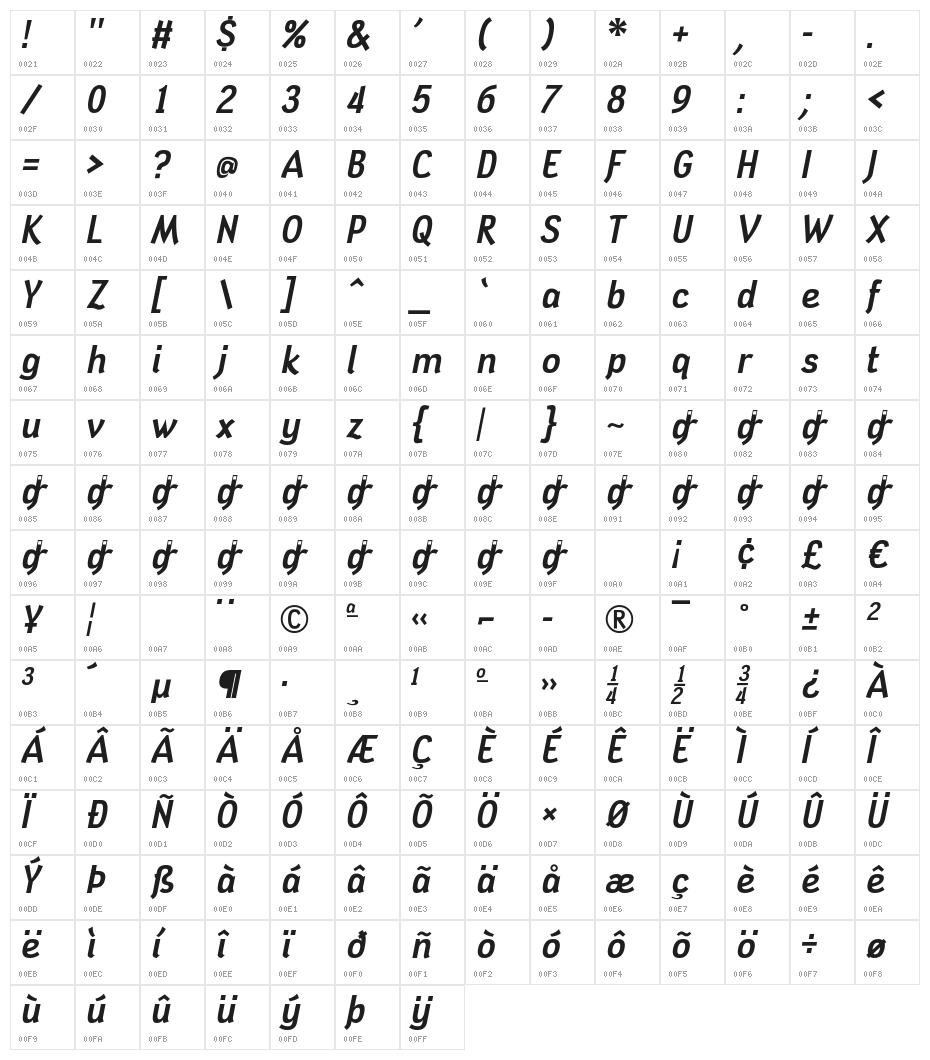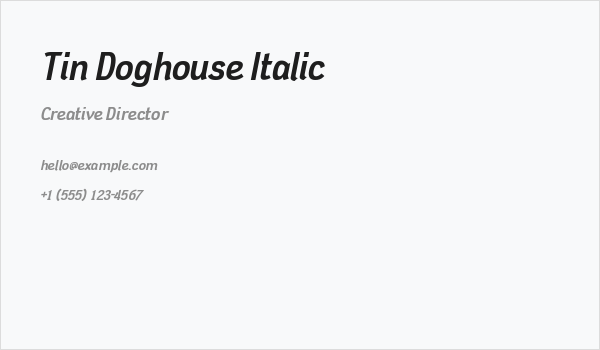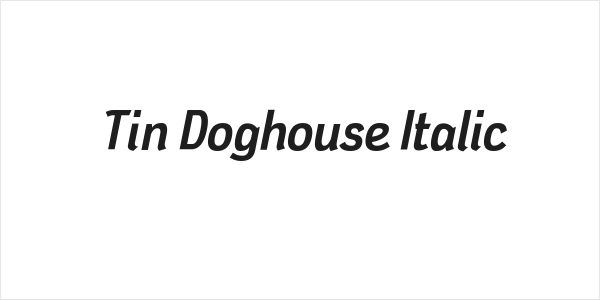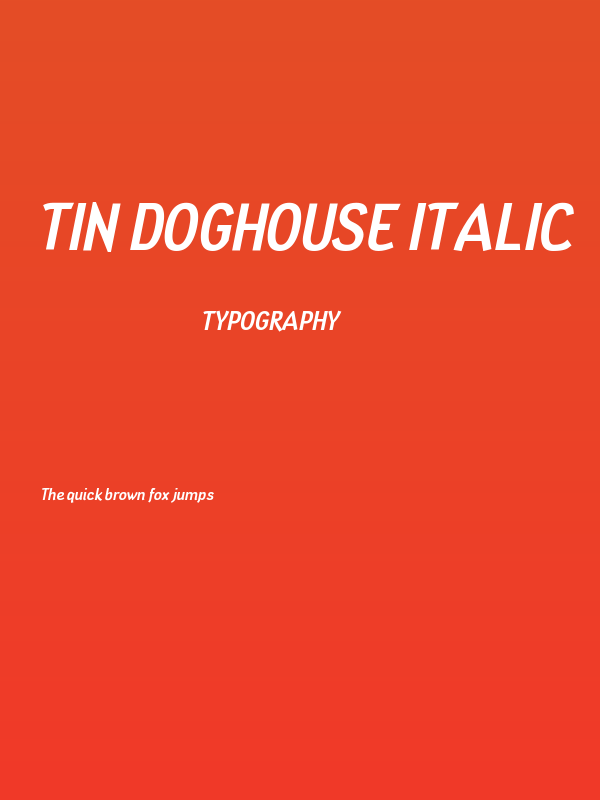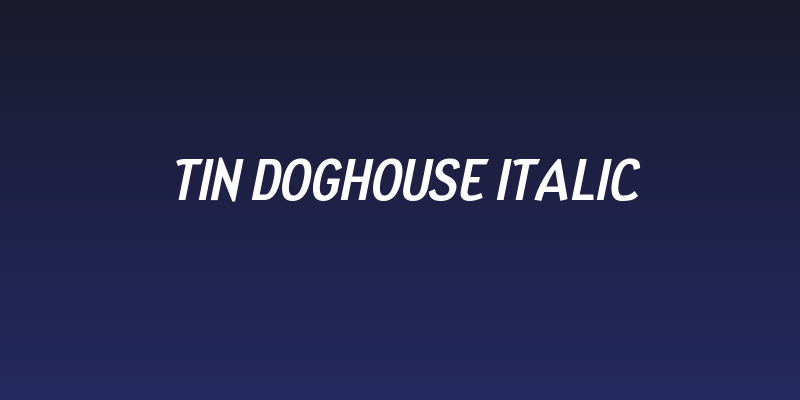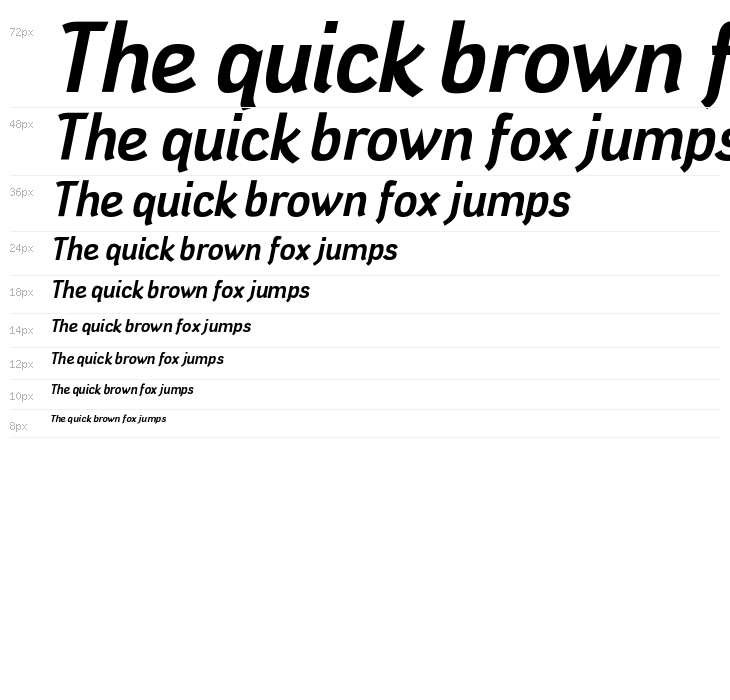
Tin Doghouse Italic Font
Tin Doghouse Italic Description
This font features a dynamic and modern italic style with a forward-leaning slant that adds a sense of motion and energy. The characters are well-defined with smooth curves and sharp edges, creating a sleek and contemporary appearance. The uppercase letters are bold and commanding, while the lowercase letters maintain a consistent flow, enhancing readability. The numerals are clear and distinct, making them suitable for various applications. Special characters are included, offering versatility for different design needs. Overall, this font exudes a professional yet approachable vibe, making it ideal for a wide range of creative projects.
| Use Case | Headlines, Branding, Digital Content |
| Proposed Projects | Ideal for branding, advertising, headlines, and digital content where a modern and dynamic look is desired. |